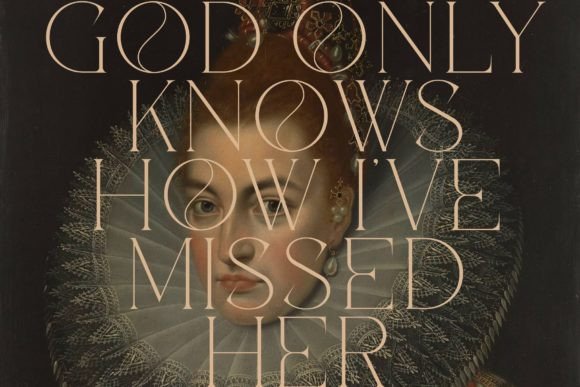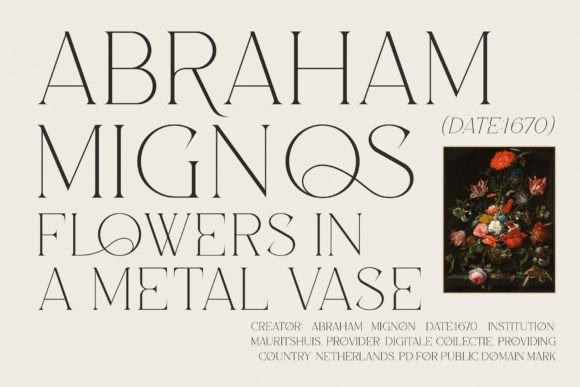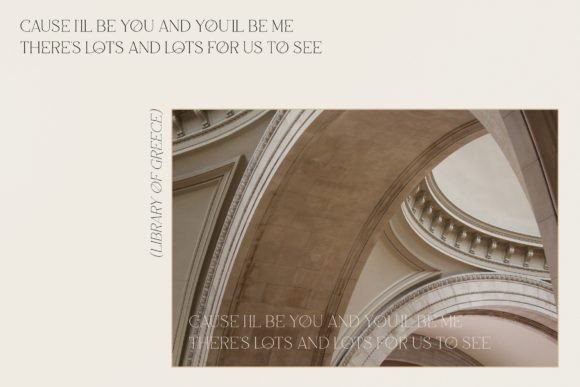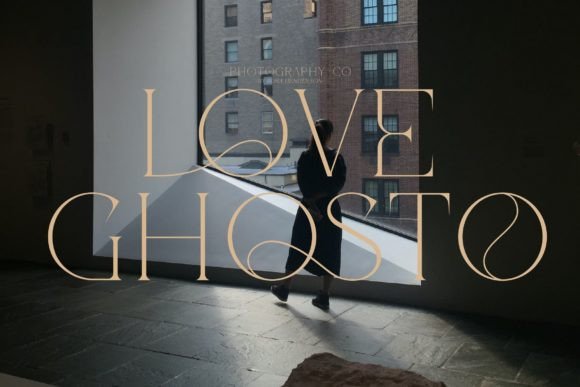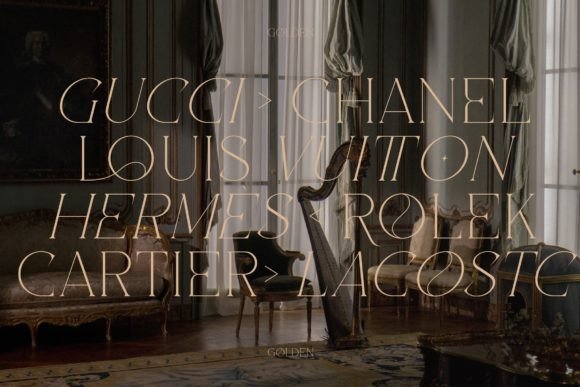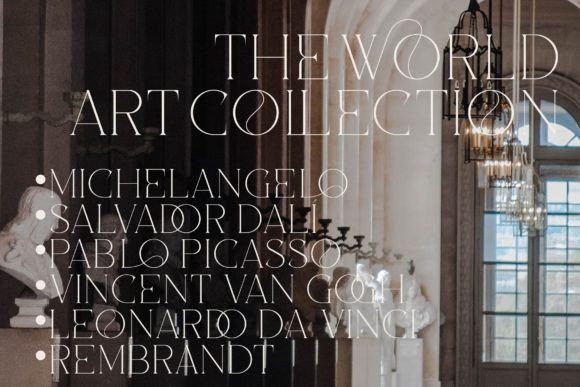
The Elegance of Golden Font: A Designer’s Dream Come True
I’ll never forget the time I was working on a luxury brand project, and my client asked for a font that exuded elegance and sophistication. I scoured the internet, tried countless fonts, but nothing seemed to fit the bill. That was until I stumbled upon Golden Font. ✨ This modern and classic typeface has been a game-changer for me, and I’m excited to share its beauty with you.
I’ve had the pleasure of working with Golden Font on several projects, and here’s what I think:
- ✅ Unique style: Golden Font has its own distinct look that’s both modern and classic.
- ✅ Elegant and luxurious: Perfect for high-end brands, book or movie titles, and fashion designs.
- ✅ PUA encoded: Easy access to amazing glyphs and ligatures.
- ✅ Versatile: Suitable for logos, magazines, clothes, lettering, quotes, and more.
As for quirks, I do have a few minor complaints:
- ⚠️ Some characters may require manual kerning: This can be a bit tedious, but it’s a minor trade-off for the font’s beauty.
- 🤔 Limited availability of certain glyphs: While the font has many glyphs, some users may find that certain characters are not available.
The Story Behind Golden Font
While I couldn’t find any definitive information on the origins of Golden Font, I like to imagine that it was created by a talented designer who wanted to craft a typeface that embodied elegance and sophistication. Perhaps they drew inspiration from classic serif fonts, but with a modern twist. Whatever the story, Golden Font has become a staple in my design toolkit.
| Font Name | Golden Font |
| Author | Storytype Studio |
| What is Golden Font best suited for? | Golden Font is perfect for elegant and luxury designs, such as logos, book or movie titles, fashion brands, magazines, and more. |
| Is Golden Font PUA encoded? | Yes, Golden Font is PUA encoded, making it easy to access amazing glyphs and ligatures. |